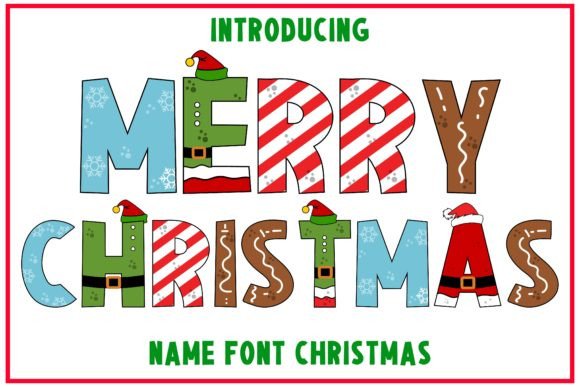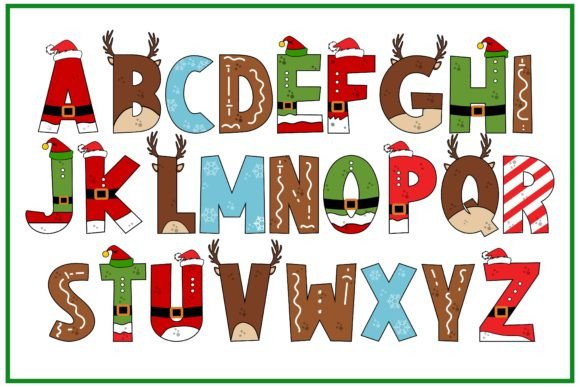
Christmas is a delightful and festive Opentype-SVG color font that adds a touch of joy and whimsy to your Christmas-themed designs. With its charming and decorative characters, this font is perfect for creating eye-catching visuals for various projects.
Whether you’re working on Christmas cards, invitations, posters, apparel designs, or any other creative endeavor related to the holiday season, Christmas font will instantly bring a cheerful and festive vibe to your designs.
The color variations and decorative elements in the font allow you to create visually appealing typography with ease. You can use different colors, gradients, and effects to make your text truly stand out and capture the spirit of Christmas.
With Christmas font, you can add a playful and festive touch to your projects, making them more engaging and appealing to your audience. Spread the holiday cheer and bring a smile to people’s faces with this cute and decorative font.
Whether you’re designing Christmas-themed shirts, greeting cards, party invitations, or any other project that needs a festive touch, Christmas font is a wonderful choice that will instantly enhance your creations and evoke the spirit of the holiday season.